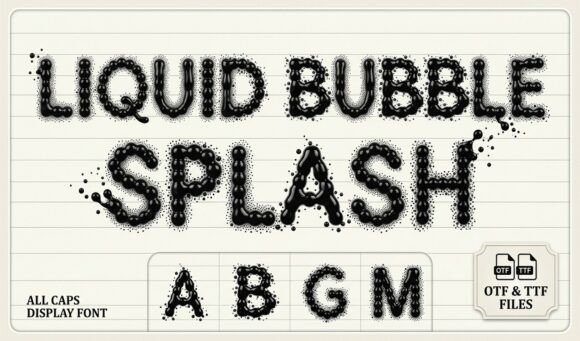
Introduction to Liquid Bubble Splash Font
Add a burst of chaotic, fluid energy to your designs with the Liquid Bubble Splash Font.
This highly unique and modern display font is constructed entirely from glossy, 3D-style liquid drops and scattered particles The letters appear as though they are formed by splashing black ink, clustered bubbles, or magnetic fluid, giving it a slightly grungy yet polished look.